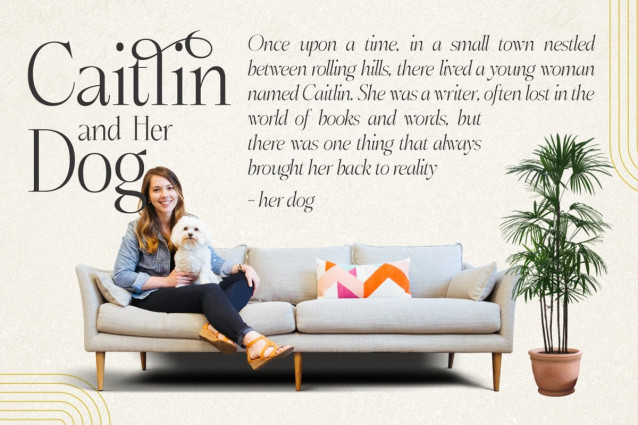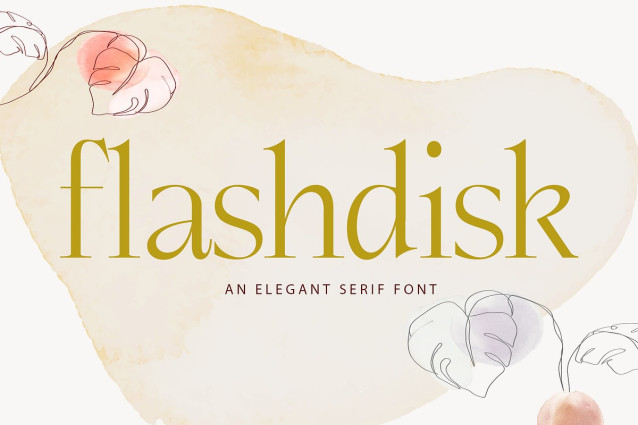
Flashdisk Font
Flashdisk Font: Stylish with bold cuts, sharp edges and interactive straps. The bold looking characters are spread across each alternate letter, with different styles and maximum personality. The separation between the bold characters and the standards considered binding creates a strong, modern and attractive typeface. Suitable for logos, icons, magazines, quotes and more.